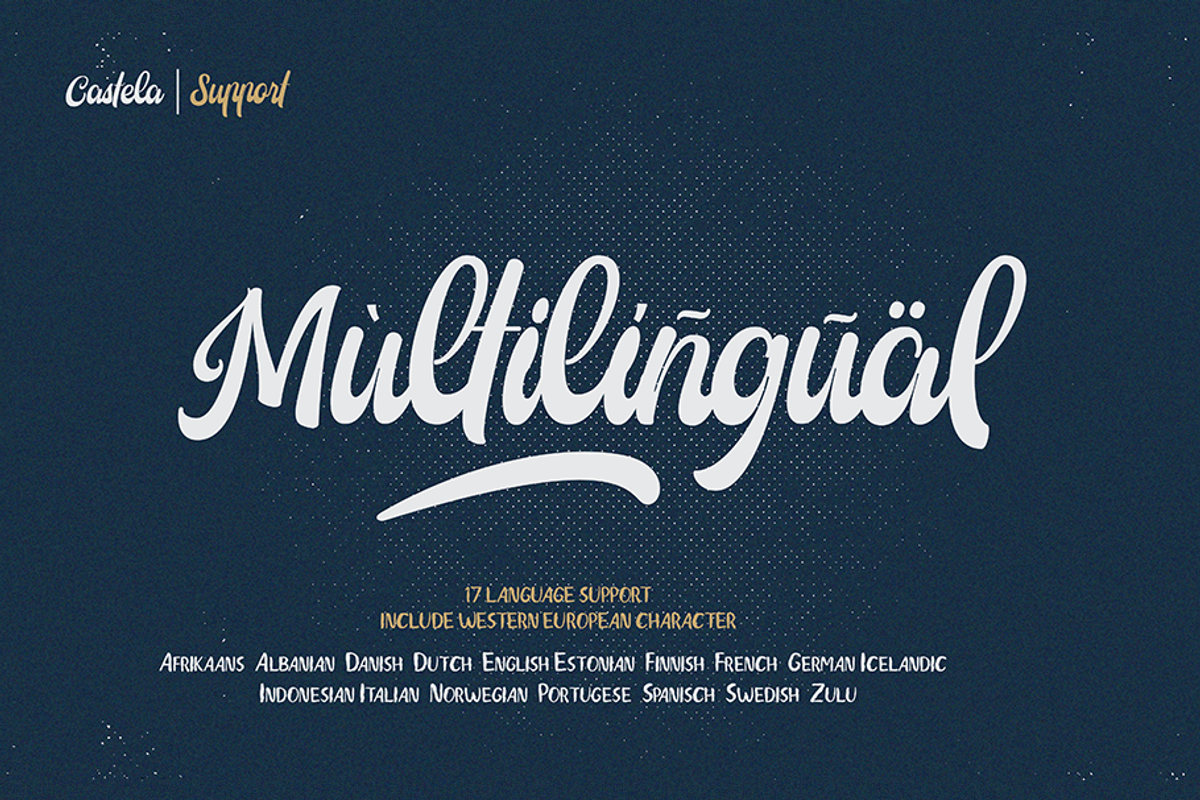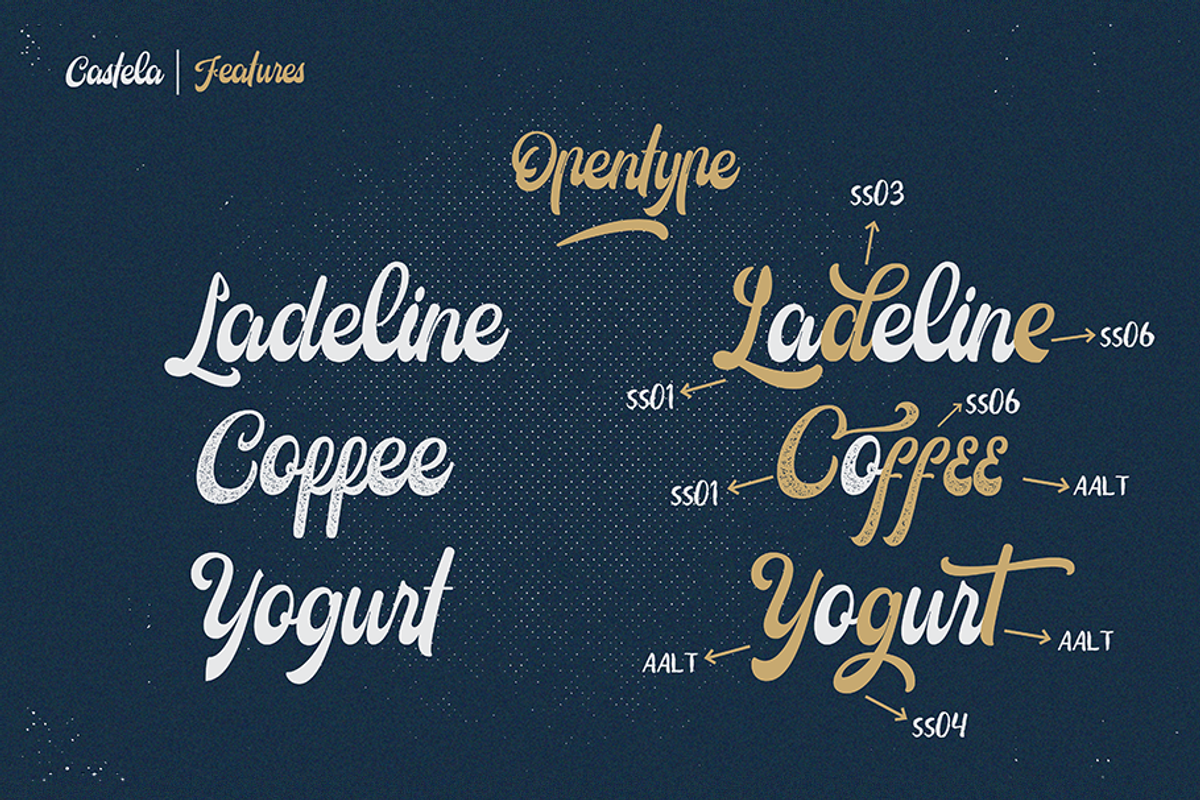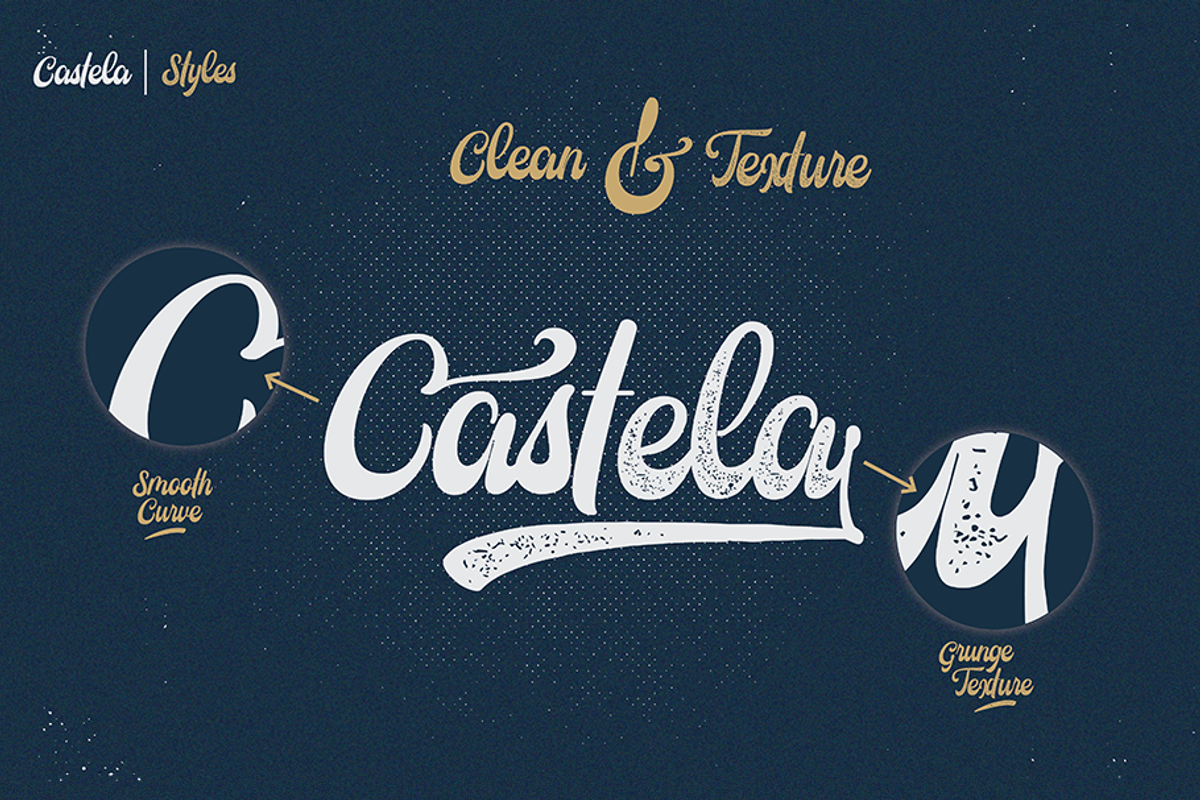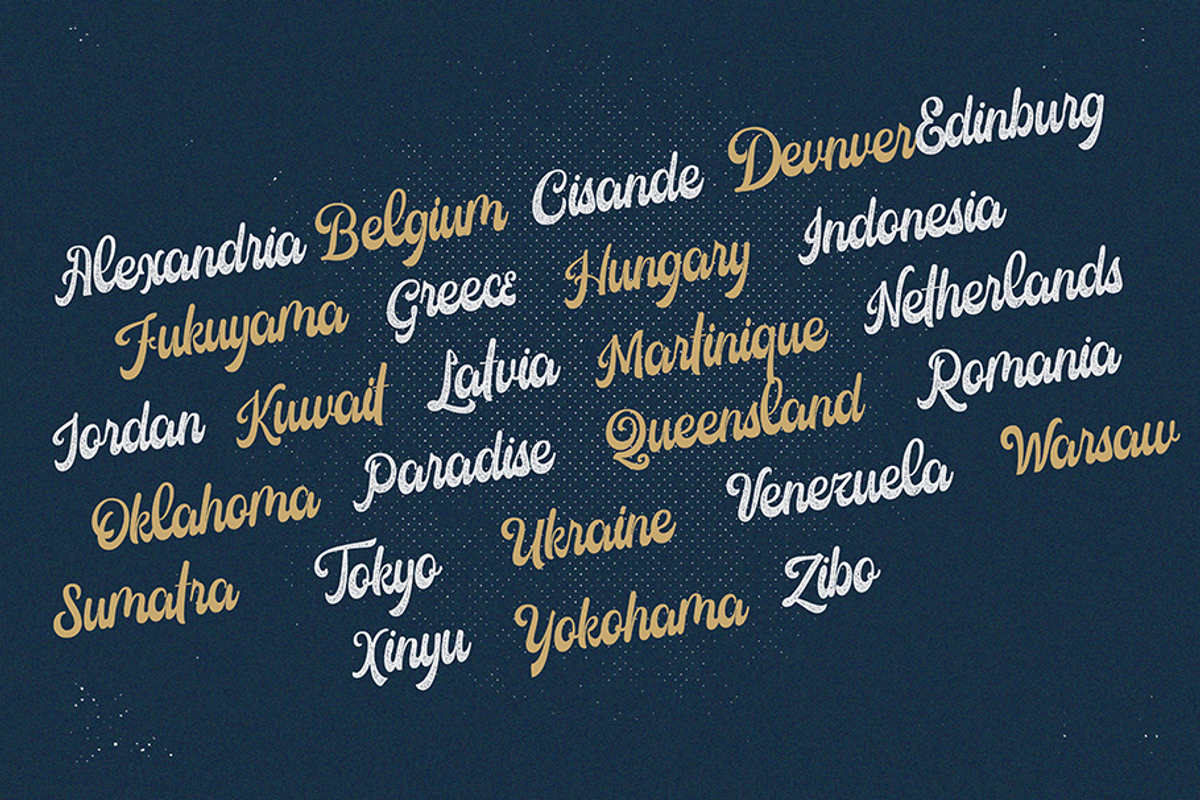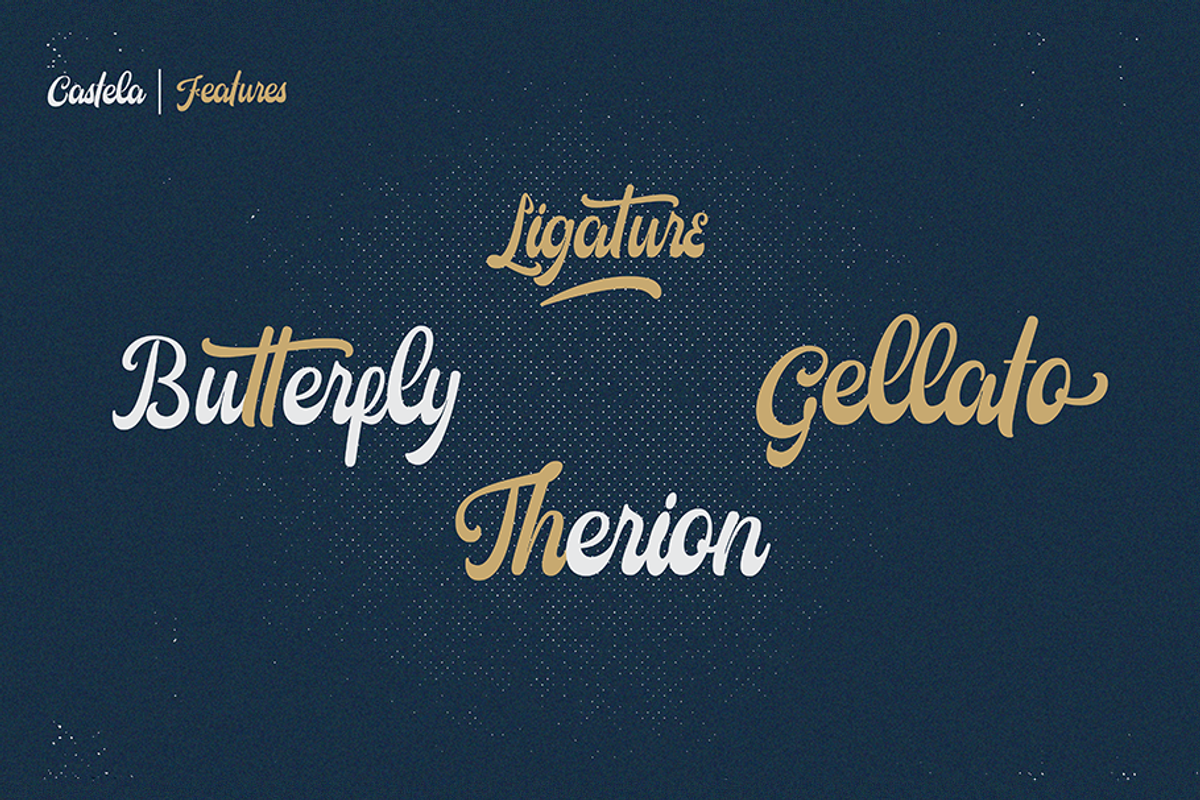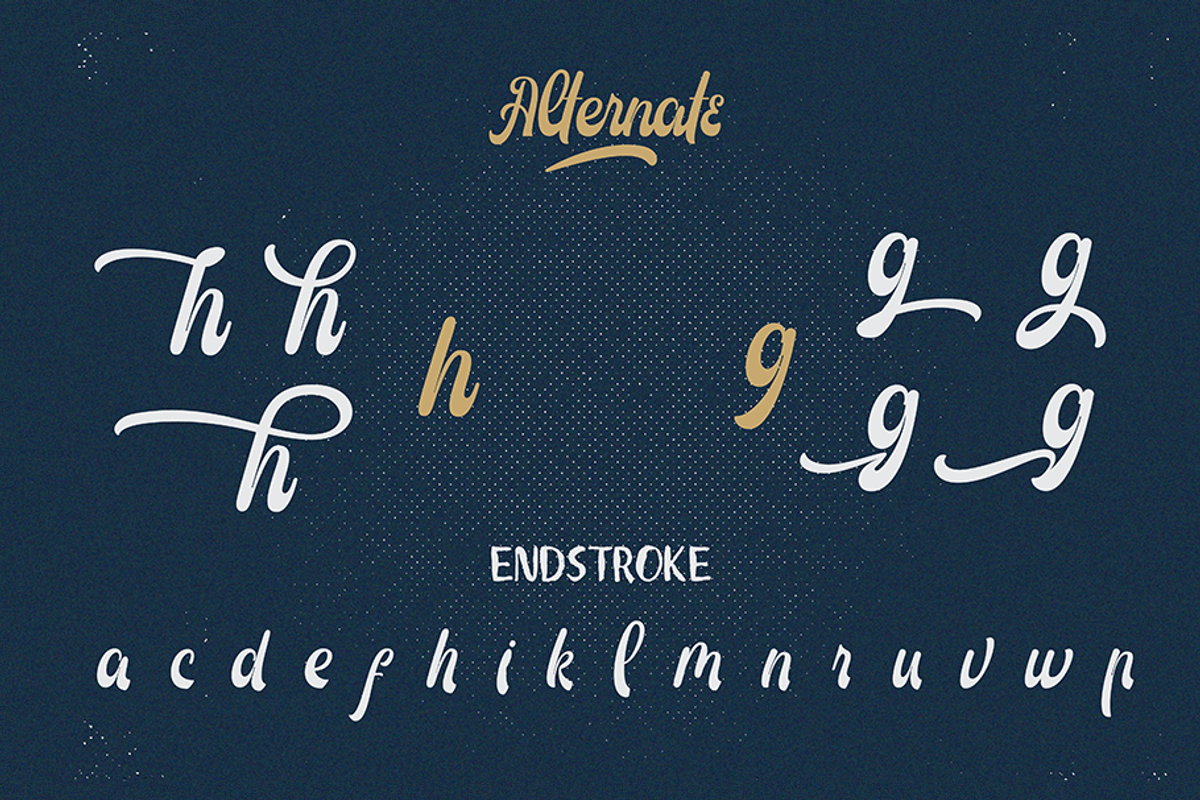
Castela (3 fonts with extras)
Let us introduce you to CastelaCastela is script fonts that created with a fluffy looks, this fonts inspired by both modern and vintage packaging. Castela is created carefully to have a look that make you fell something.
Castela comes with 2 styles
Castela opentype feature with ligature, and stylistic alternates, allow you to mix and match the letters. also Castela comes with multilingual support
EXTRAS also we give you a perfectly paired font called Sandra
Sandra is rough sans serif font that created to have a perfectly imperfect looks.